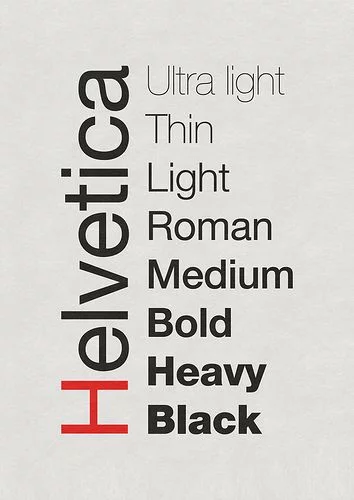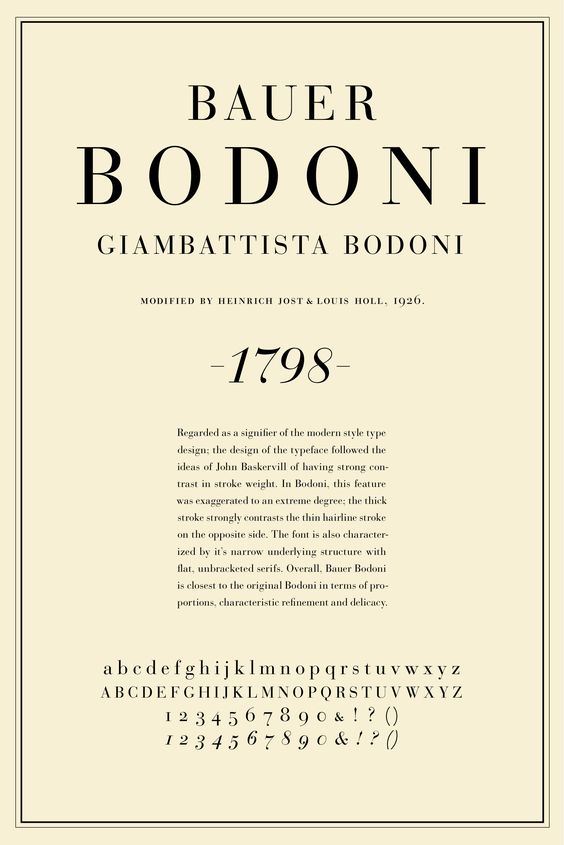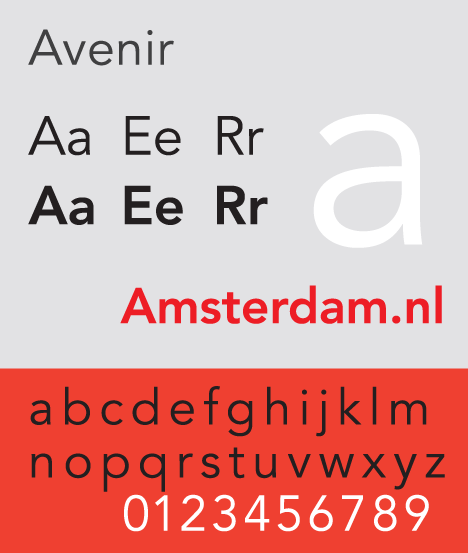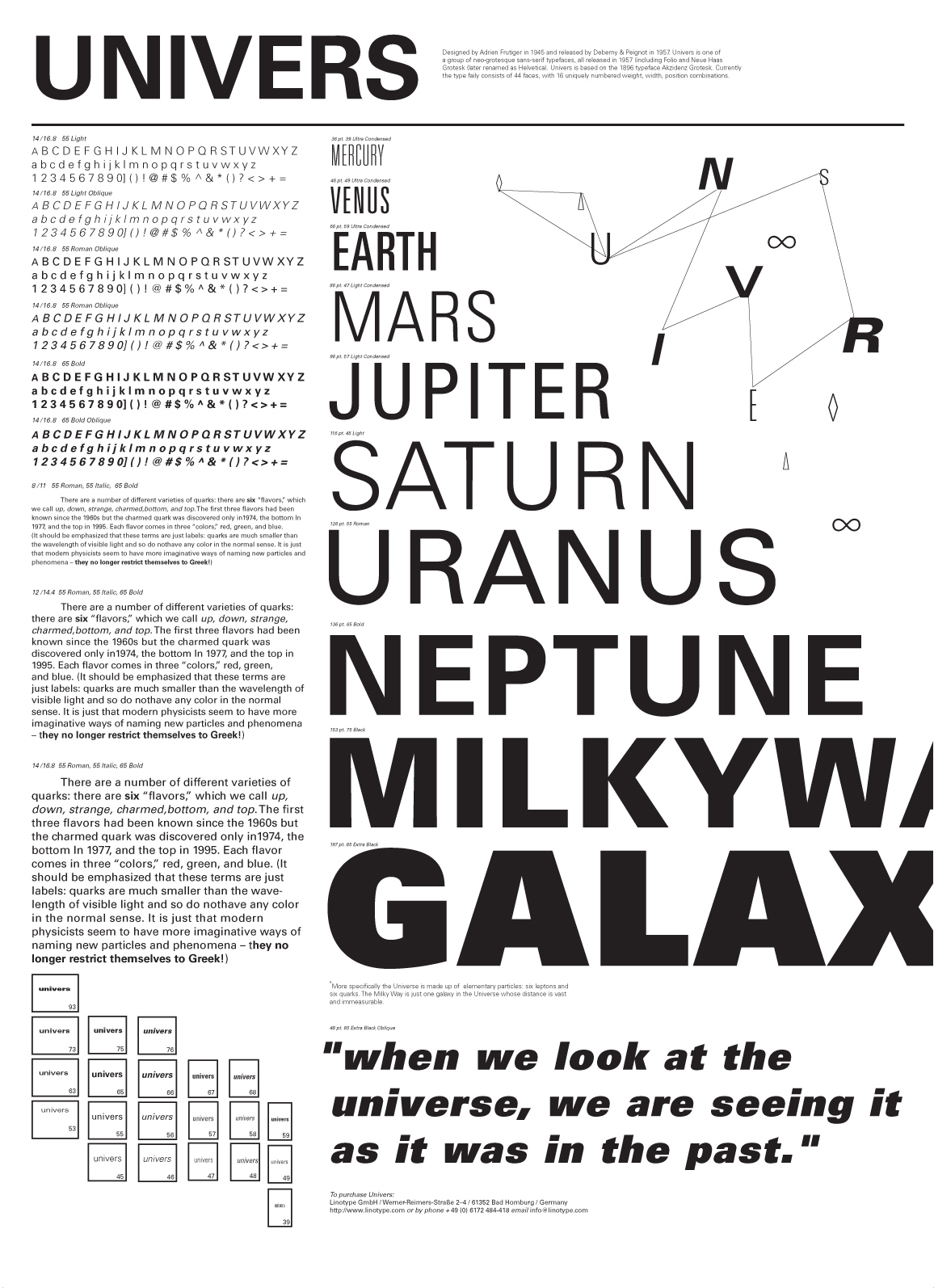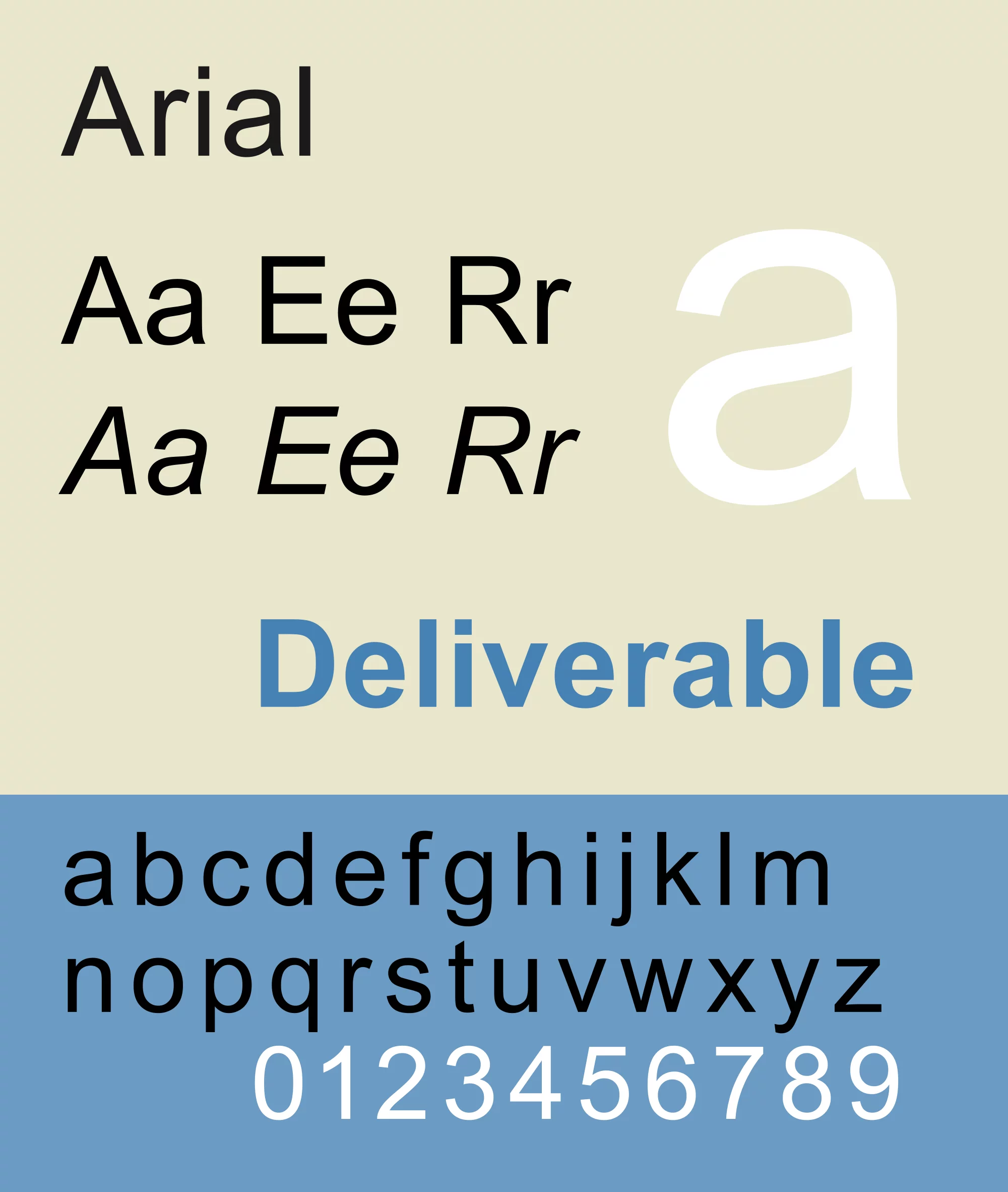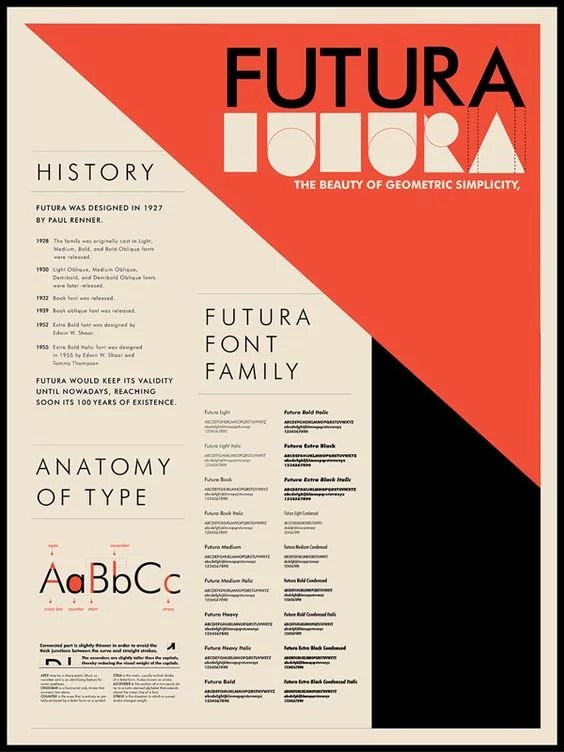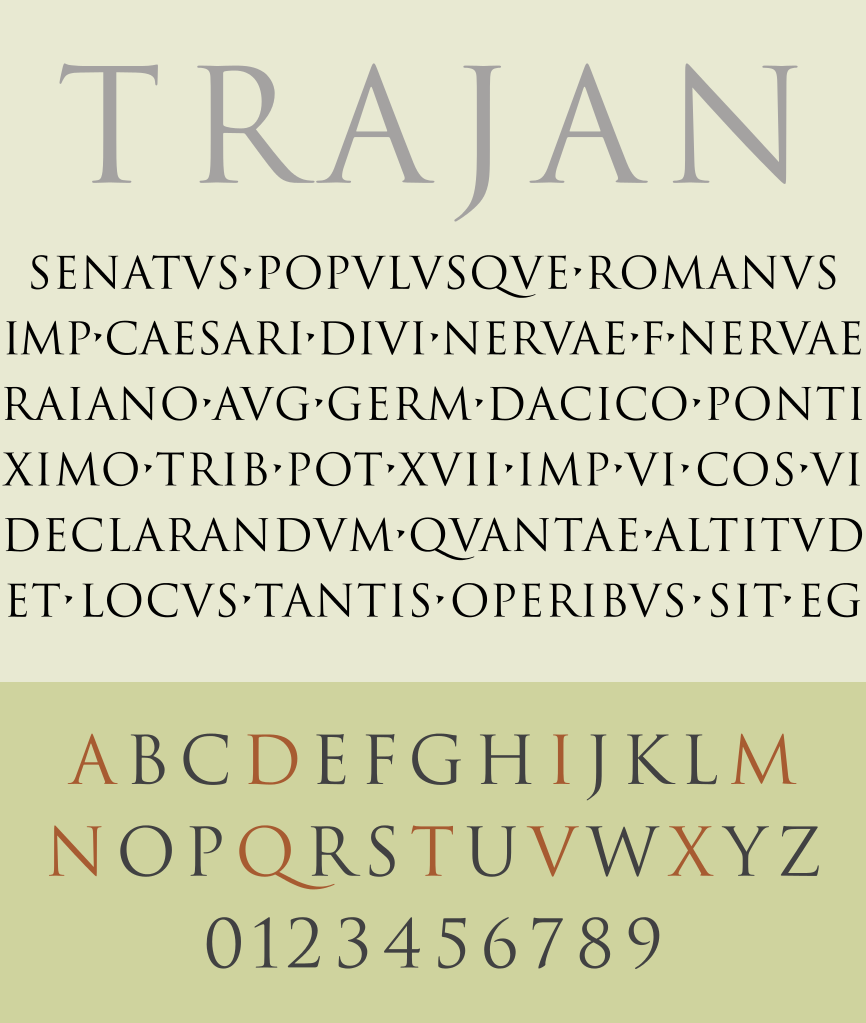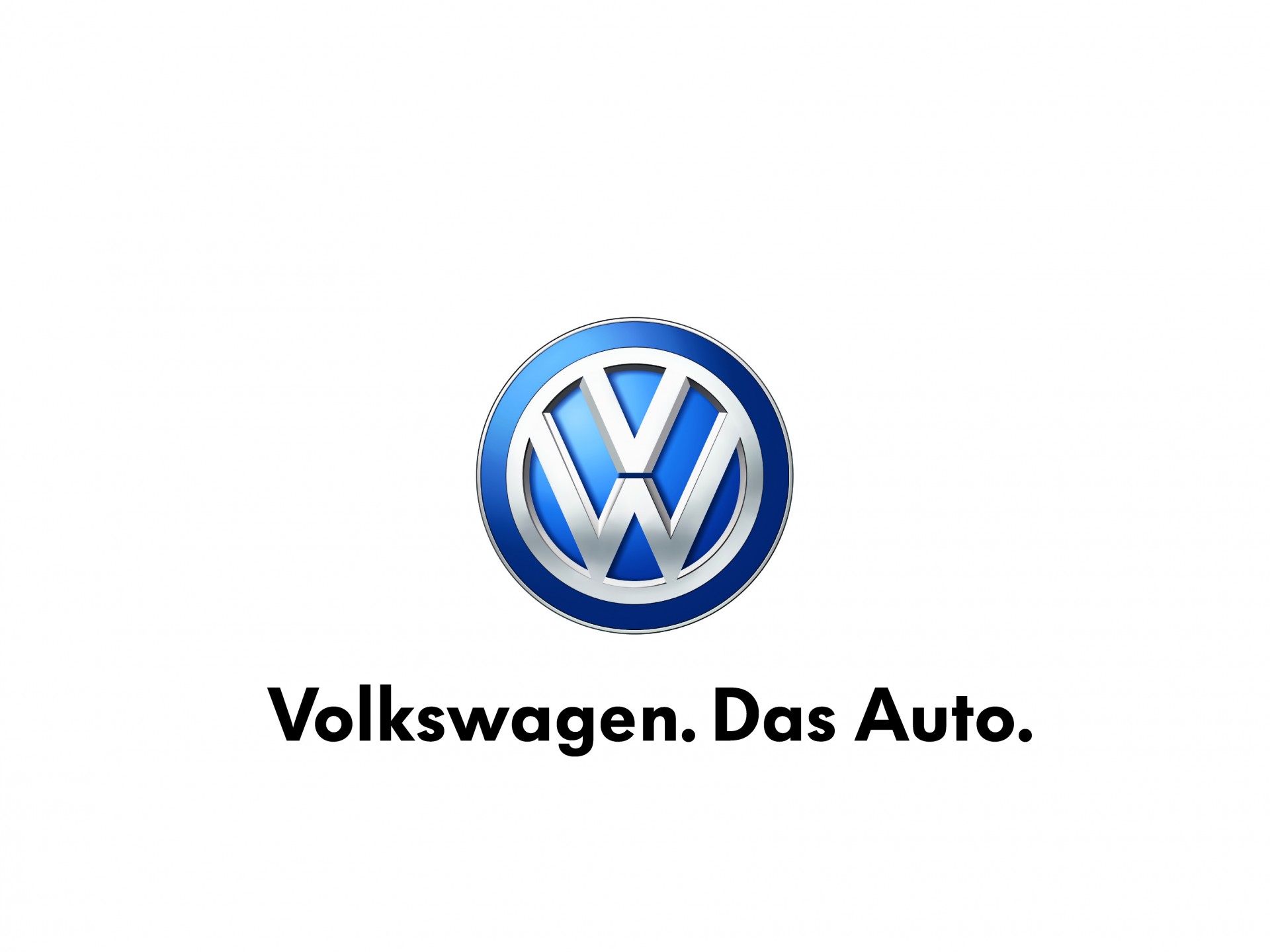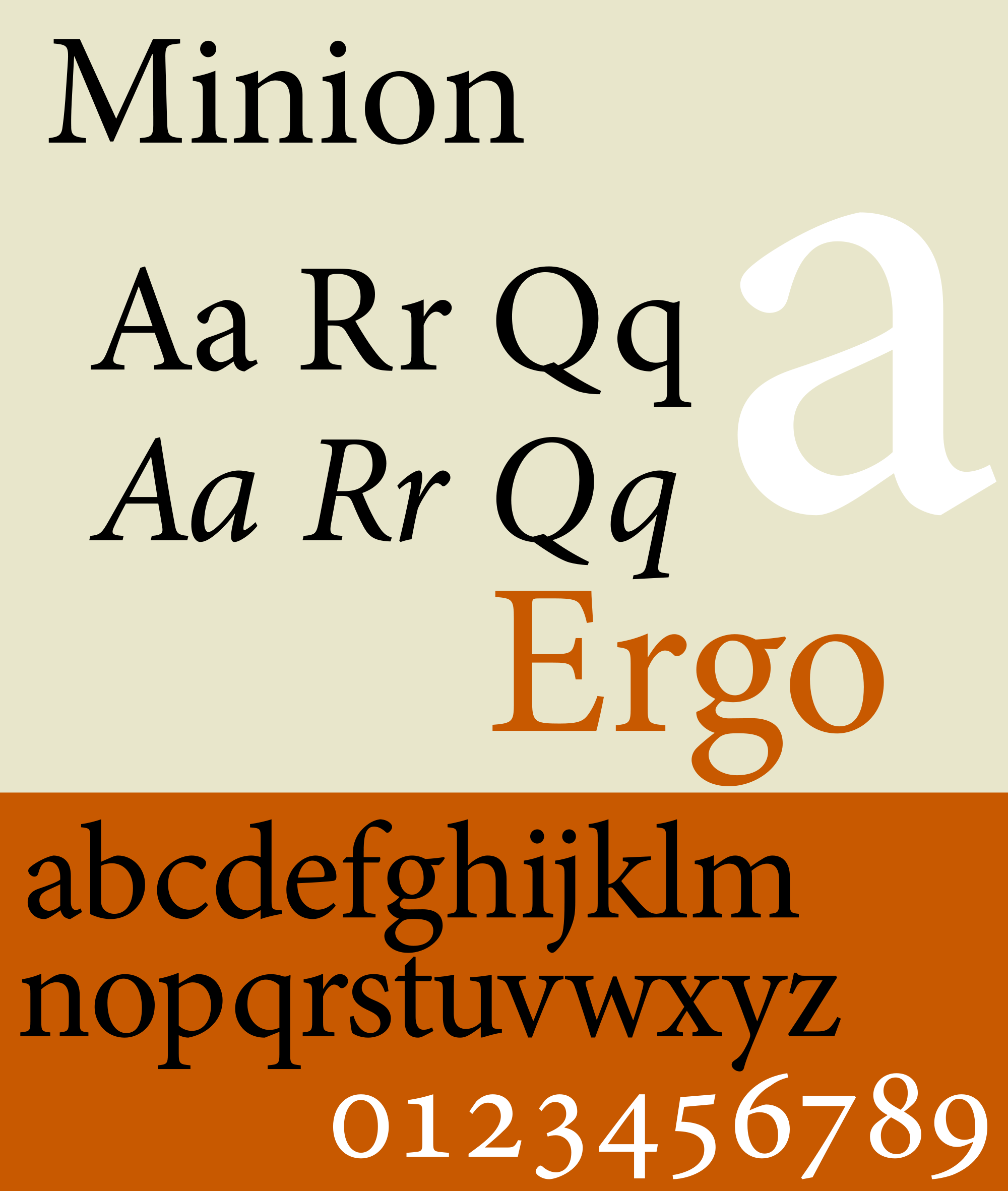
The 25 most used typefaces in advertising
There are some that say that web design without typography is only half a design. That said though, there are also dangers involved in choosing the wrong font and ruining the whole design. That’s why we are sure, you will be very interested in this selection of the 25 most used typefaces in advertising.
Its not easy knowing which typeface to use as there are some that are highly recommended and then there are those that are prohibited, as well as those that are best for simple designs. So the question is, which will improve the visual look of your website?
Each typeface goes beyond simply “art of the text” and refers to the evolution of creativity in simple and advanced website designs. Like all architecture needs a support, so too does every website in the form of a font for creative support.
However you shouldn’t think that typefaces are just an afterthought. They can be fundamental in achieving a successful identity for the brand or website. It is an incredibly important element, so before blindly making your choice it is a good idea to swot up on some of the most used fonts in advertising.
This way you can have a list of the most recommended fonts, which will help you see that some are much cleaner and easier to read than others. There is beauty in simplicity; so put to one side the fonts that are too complex, what should be most important to you is that it is readable.
What are the most used typefaces in advertising?
1.- Helvética
Helvetica is probably the most well known typeface in the world. It was created in 1957 by Max Miedinger and Eduard Hoffmann and became one of the main players during the 60´s and 70´s.
This font has a wide range of variants and is very versatile in the world of design. As we have said, the idea of this post is to introduce you to fonts that are clear and easy to read and Helvetica is a perfect example of this. Probably one of the main reasons it is used so much in the creation of company logos
Even though it is used mainly in titles, its simplicity is what makes it a wildcard for any number of occasions.
2.- Bodoni
Bodoni is a serif typeface designed by Giambattista Bodoni in 1798. Its creation culminated 300 years of evolution of Roman typography and emerged with great contrasts between thin and thick lines and an overall geometric shape.
Currently, as well as in advertising, this typeface is also used in the press.
3.- Avenir
The Avenir is a classic typeface that was designed by Adrian Frutiger in 1988. Frutiger was one of the best-known typographers of the 20th century, and in addition to the Avenir he also created the Univers trypeface.
4.- Univers
Also designed by Frutiger in 1957, the Univers is one of the most successful typefaces of the second half of the 20th century. So much so that it is one of the most used typefaces in advertising and in the media.
It´s clear, simple and legible and incredibly versatile.
5.- Arial
Without doubt it is one of the best known without serif and its completion is a straight, unadorned shape. It really took off after it was included in Windows and over the years it has spread throughout websites and different digital environments.
We recommend using non-serif fonts, as they are easier to read on the screen.
6.- Futura
Out of all of the typefaces of the 20th century we come to the most famous, Futura. This font has a very wide variety of bodies ranging from the finest to the thickest.
It was designed by Paul Renner in 1925 and was influenced by Bauhaus. Being a very stylish typeface it is ideal for any form of advertising, posters, magazines and books.
7.- Trajan
The Trajan font stands out because of it old-fashioned design, which is based on the Roman Square Capital letterforms that were used in the inscriptions at the base of the Trajano columns.
Designed by Carol Twombly, this typeface originally consisted solely of capital letters. However, as the design later evolved new versions were created and in 2001 a set of small capitals were added to this font.
It is a very successful font for use with elegant and select content.
8.- VAG Rounded
It is a geometric sans-serif font, which was designed as a corporate typeface for Volkswagen in 1979 and is currently owned by Adobe.
It is normally used in advertising and is a great choice for logos, although as you can already see, one of the most recognized brands out there already uses this typeface.
9.- Minion
Minion is one of the most used typefaces in advertising and was designed by Robert Slimbach for Adobe Systems in 1990. Thanks to its variety it’s a must when you want to enhance different resources.
10.- Garamond
The Frenchman Claude Garamond, who was a printer, designed this typeface after a request from King Francis I of France who commissioned the creation of a typeface with Greek characters in order to publish the work “Alphabetum Graecum”, and so the Garamond was created.